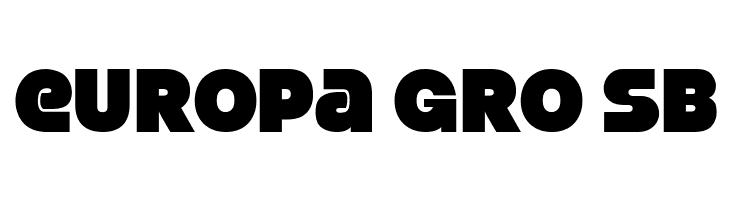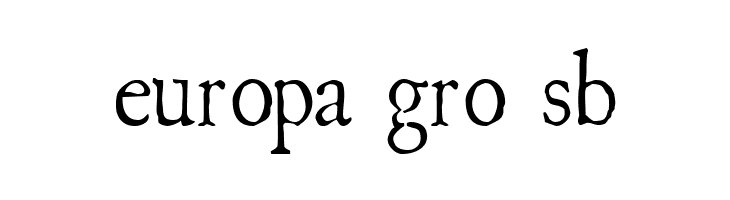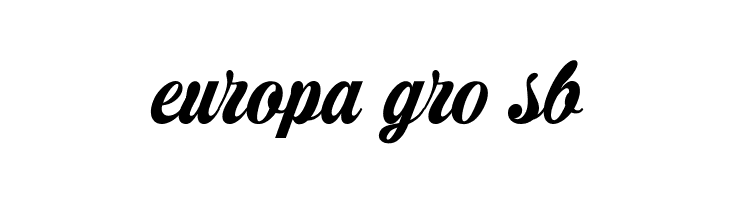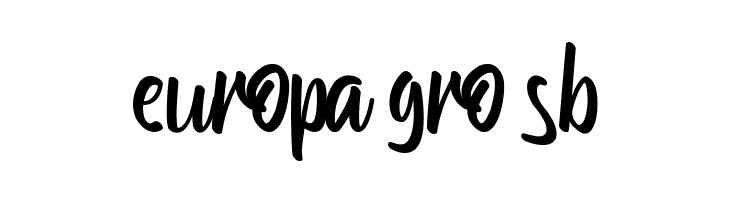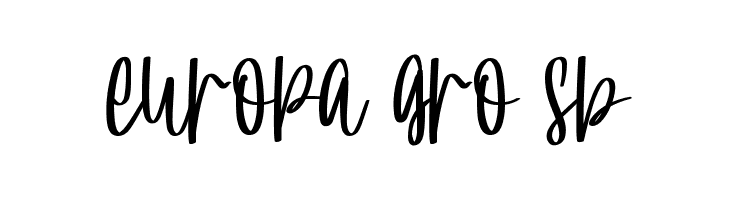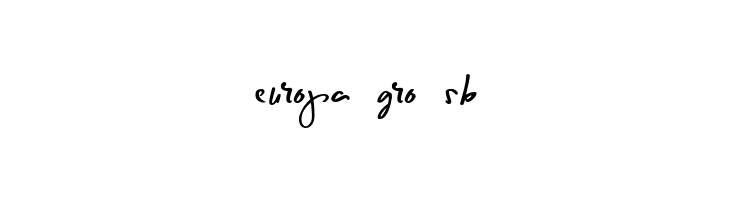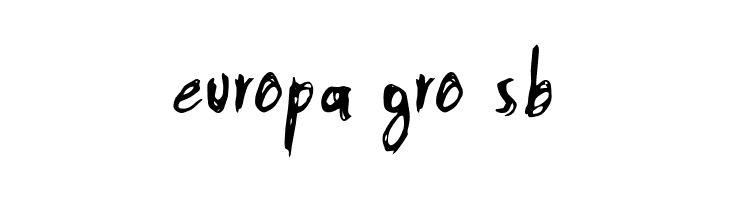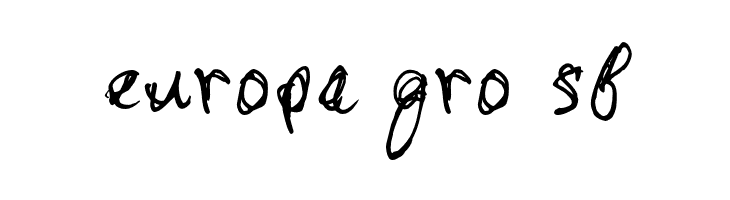
( Fonts by Rick Mueller )
A bold, retro font with playful curves and a 1960s vibe.
A playful, sketch-style font with bold, textured characters.
( Fonts by Marieke Tacken )
A bold, sketch-like font with sharp, jagged edges and an artistic flair.
( Fonts by Millieri Comunicació )
A sketch-like, hand-drawn font with an artistic and playful style.
A fluid, cursive script font with a modern, handwritten style.
( Fonts by Tom Waterhouse )
A bold, hand-drawn font with dynamic, slightly slanted characters.
( Fonts by Dirtyline Studio )
A bold, brush-style script font with dynamic and expressive strokes.
( Fonts by Dirtyline Studio )
A bold, energetic script font with expressive brush strokes.
A playful, handwritten script font with smooth, flowing lines.
( Twicolabs Fontdation - Fahrizal Tawakkal - fontdation.com )
A casual, elegant script font with smooth, connected letters and moderate stroke thickness.
( Fonts by Masa Aska Sanurumi )
( Aleksandar Stevanov - www.behance.net/Stevanov )
A casual, handwritten script font with a friendly and fluid style.
A bold, hand-drawn font with a brush-like, expressive style.
( Fonts by Digital Graphics Labs - www.digitalgraphiclabs.com )
An elegant, flowing script font with ornate, cursive letterforms.
( Fonts by Gesine Todt )
A modern sans-serif font with geometric and elegant curves.
( Cotbada Studio - Isfani - creativemarket.com/Cotbada_studio )
A playful, elegant script font with a handwritten feel and medium contrast.
A playful and elegant script font with flowing, cursive letterforms and decorative details.
( Fonts by Intellecta Design )
An elegant script font with flowing, cursive letterforms and dynamic stroke variations.
An elegant script font with ornate swirls and flowing, interconnected letters.
An elegant script font with flowing, interconnected letters and classic calligraphic style.